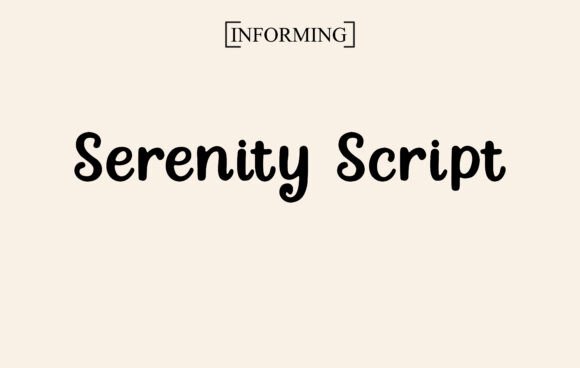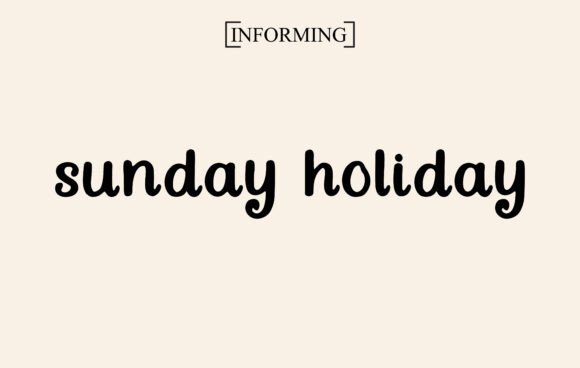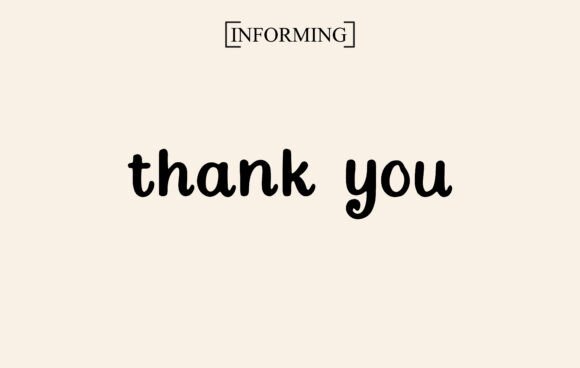
Serenity Script Font
About the Serenity Script Font
Explore the possibilities with Serenity Script Font, a font that offers both beauty and functionality. Serenity Script is designed to be a true favorite; this font has the potential to take your creative ideas to the highest level
This font is legible and looks great as a title or body text. This font would be perfect for many different designs for magazine headlines, t-shirts,social media, branding, wedding invitations, cards, etc.
Serenity Script Font Usage Examples
Serenity Script Font Example